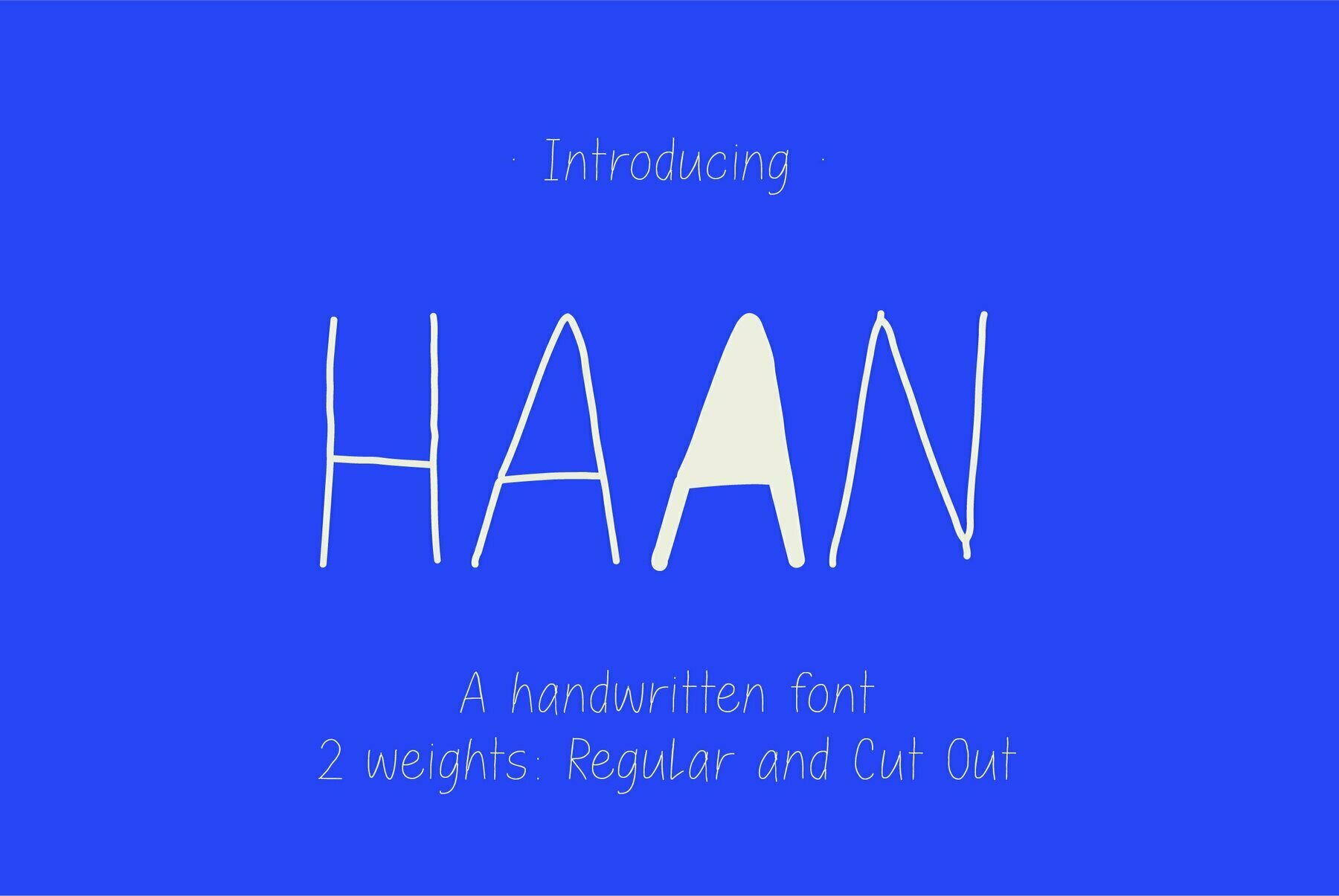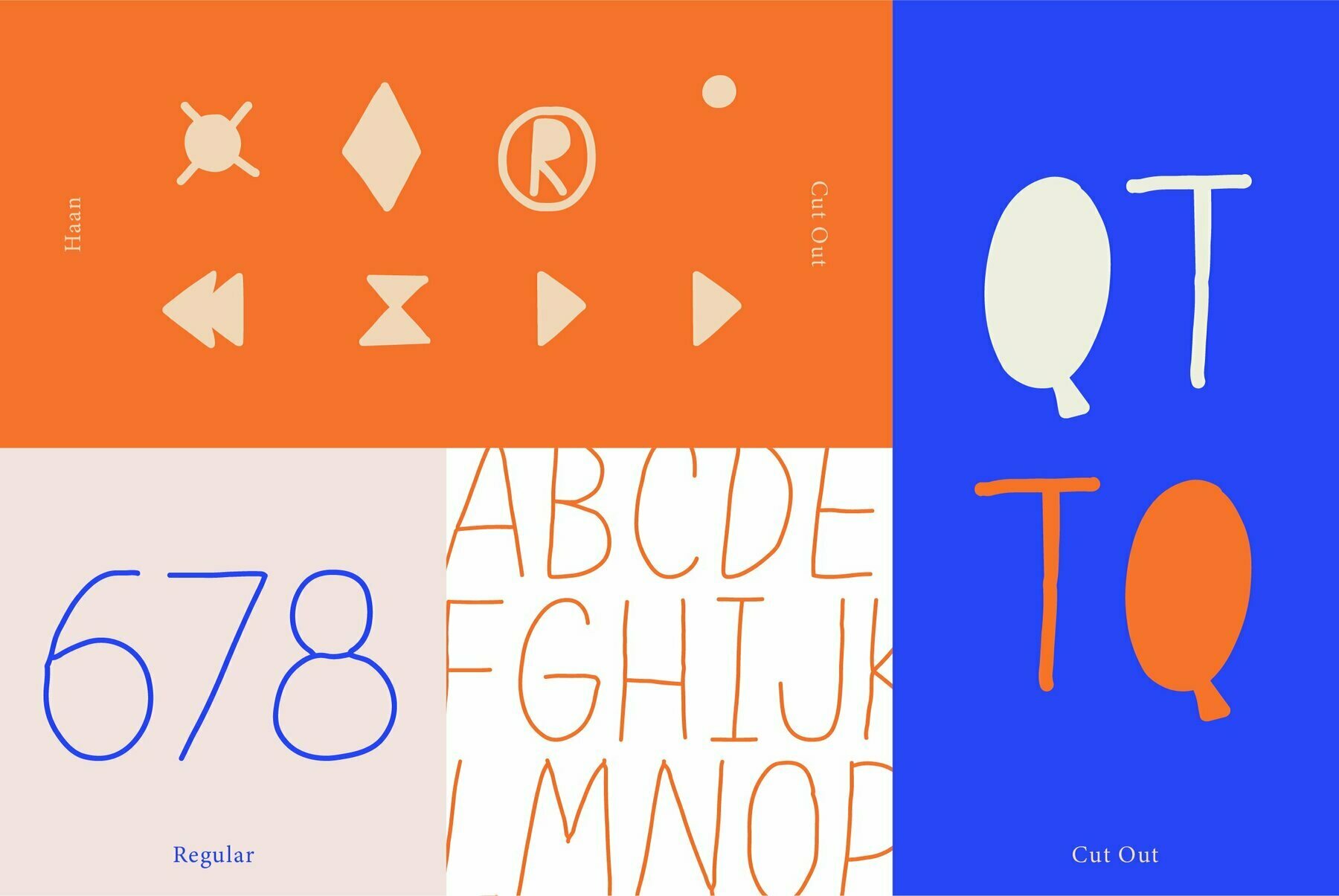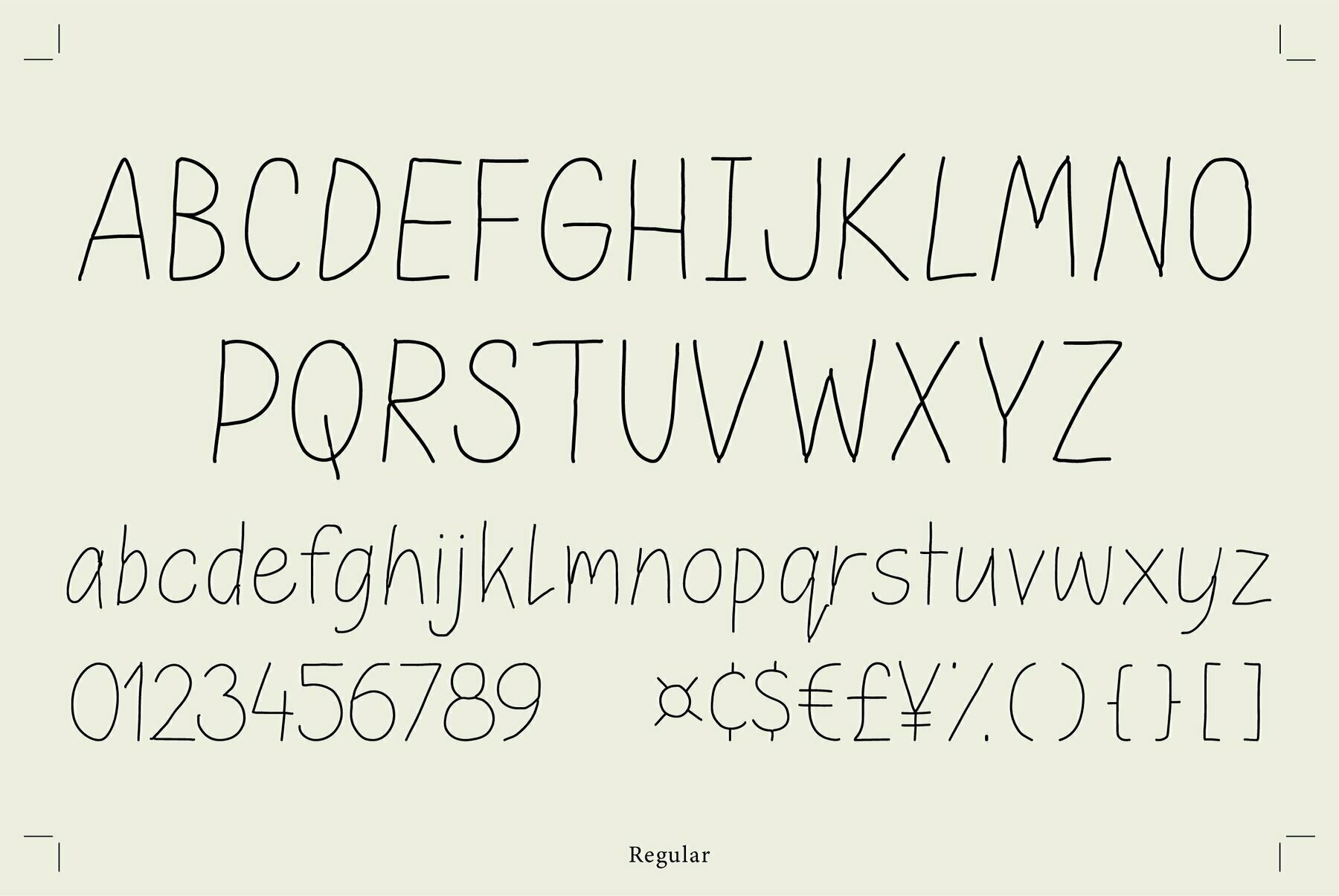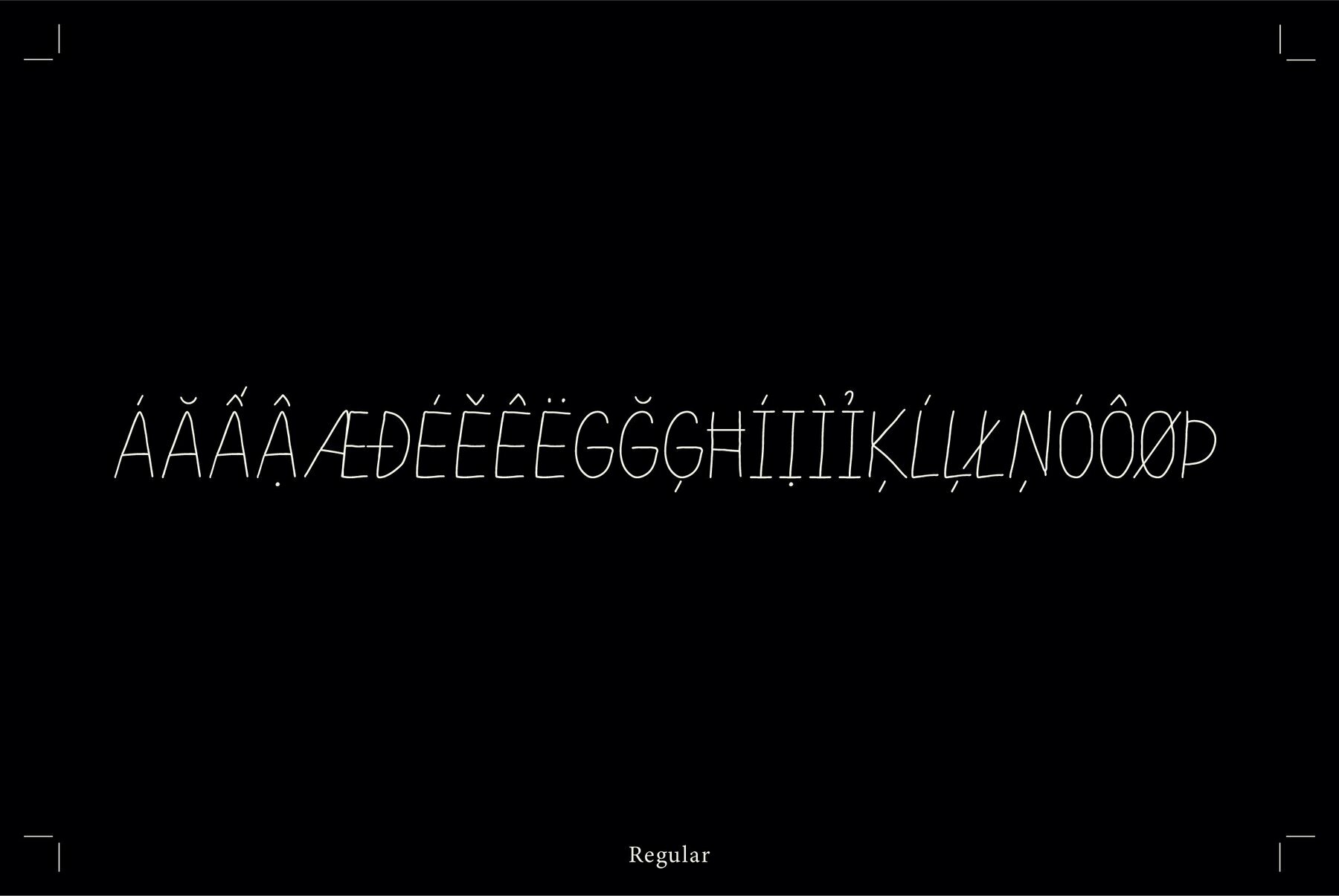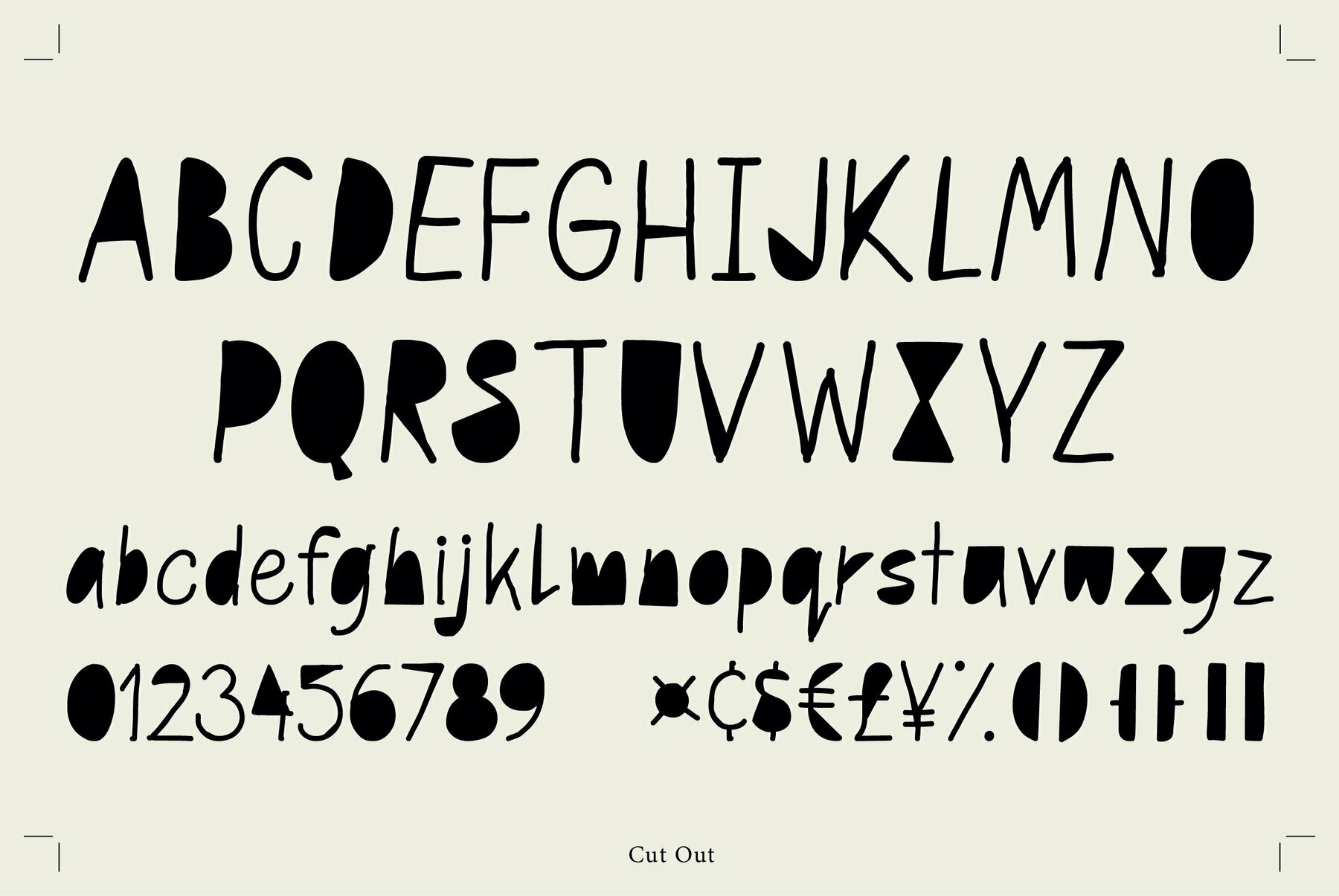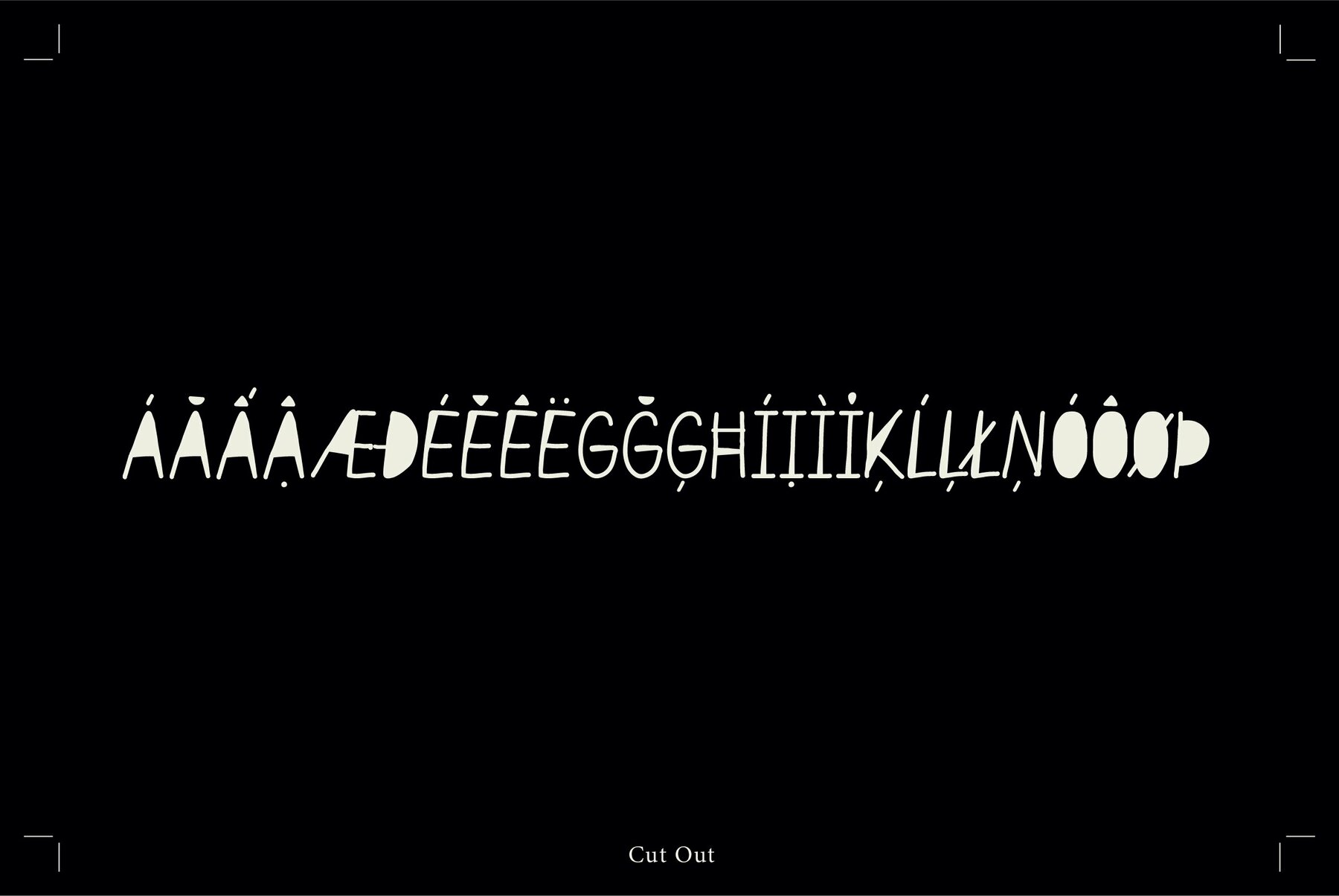
Haan Font
Influenced by handwriting and paper cut-out style. A sans serif thin line typeface with 2 styles: Regular and Cut-Out. These perfect for Branding, Logos, Advertising, Invitation design, Packaging, kids related projects, Etc.